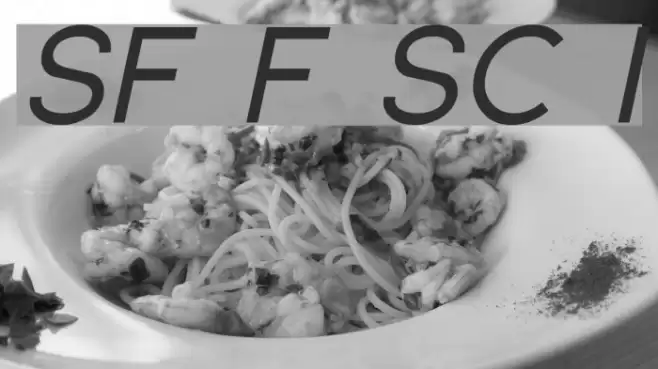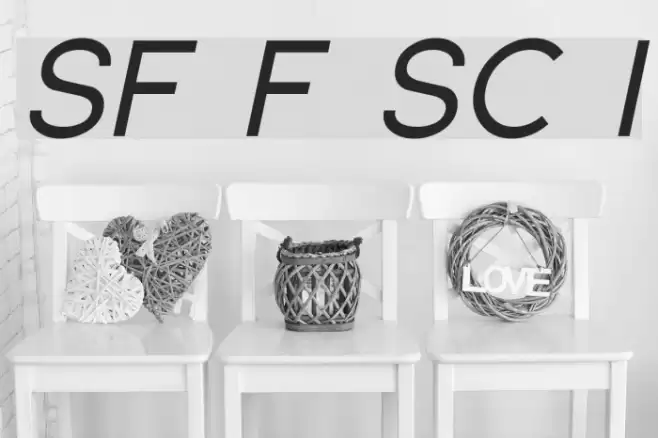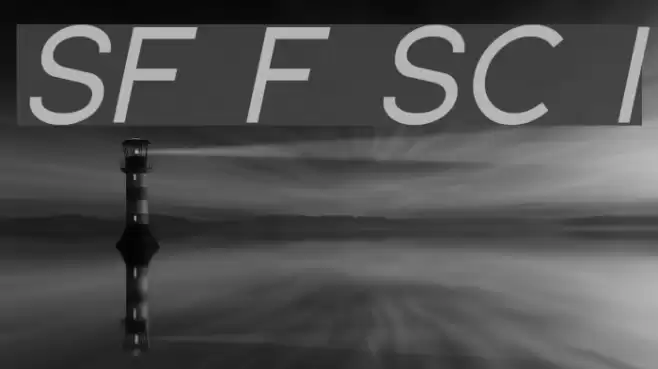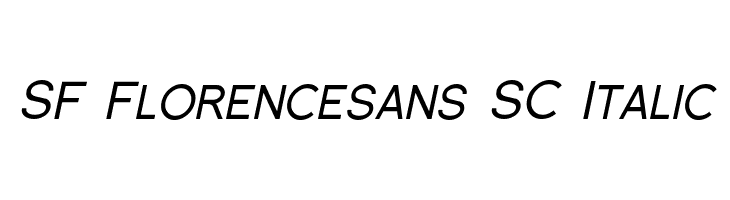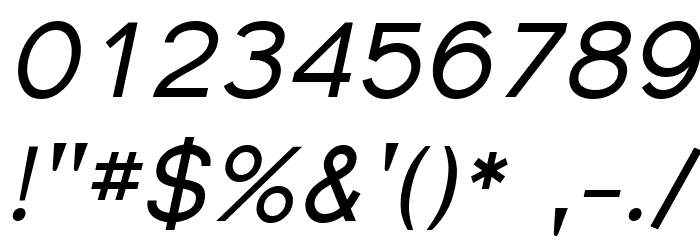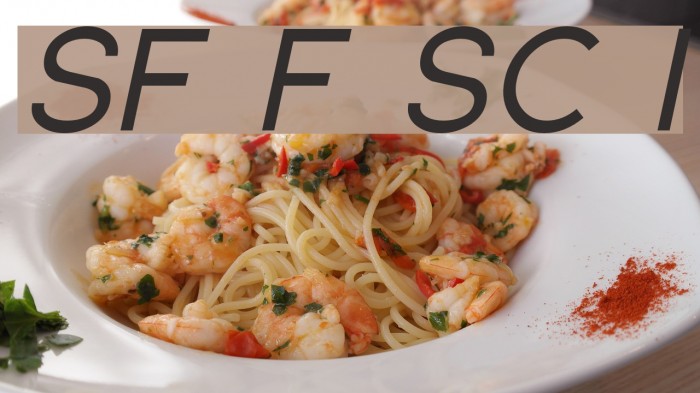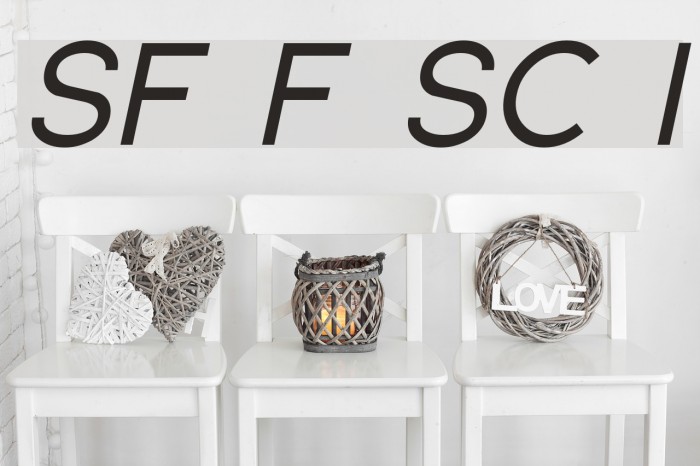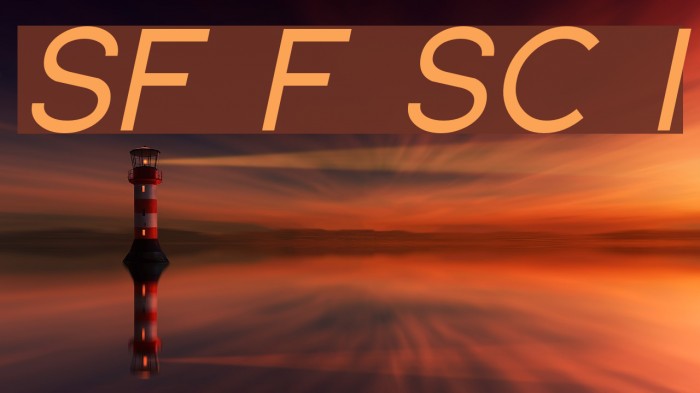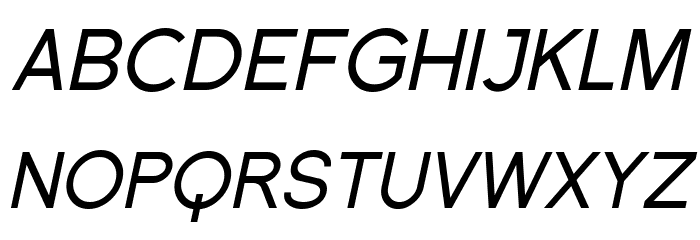
SF Florencesans SC Italic Font
SF Florencesans SC Italic Description
This font exhibits a sleek and modern sans-serif style with a noticeable italic slant, giving it a dynamic and forward-moving appearance. The characters are clean and uniform, with smooth curves and straight lines that create a sense of elegance and professionalism. The uppercase and lowercase letters maintain a consistent height and width, ensuring readability and balance. The numerals are clear and distinct, matching the overall aesthetic of the alphabetic characters. Special characters are well-integrated, maintaining the font's cohesive look. This font is versatile, suitable for both digital and print media, and can be used effectively in various design contexts.
A modern, italic sans-serif font with clean lines and a dynamic slant from Uncategorized fonts.